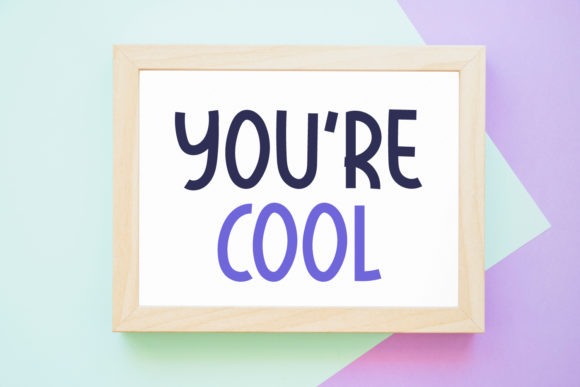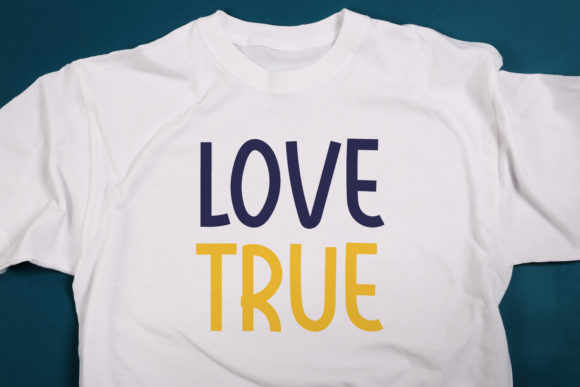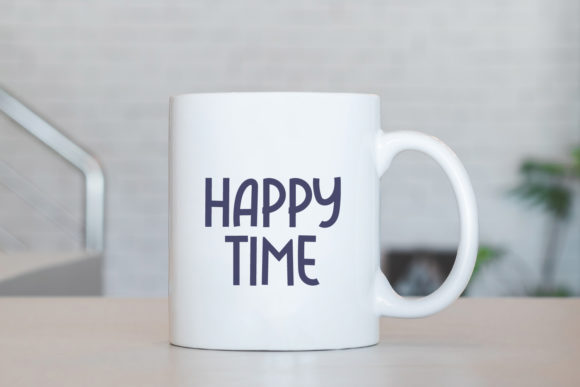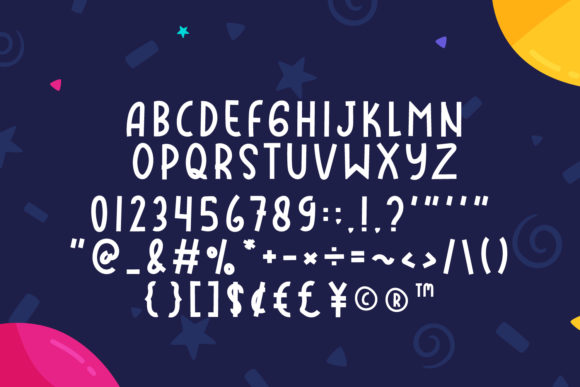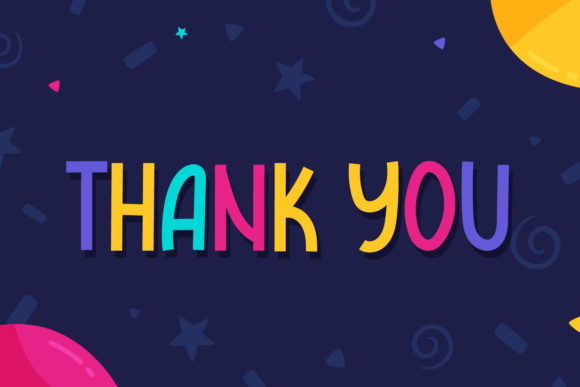
The Ultimate Playful Font for Your Next Creative Project
Have you ever been in the midst of brainstorming a new idea, only to be stuck on finding the perfect font to bring it to life? You’ve scoured through font libraries, trying out different styles and sizes, but nothing seems to capture the essence of your concept. That’s where the Kidstoy Font comes in – a bold and thick lettered display font designed to elevate any creation and make it truly unforgettable.
Whether you’re working on a children’s book, a playful advertisement, or a fun infographic, the Kidstoy Font is the perfect addition to your font library. Its unique style and versatility make it an incredibly valuable asset for designers, allowing you to add a touch of whimsy and personality to any project.
Kidstoy Font Key Features
- Font Family: Kidstoy Font is a custom-designed font family that includes various styles and weights, making it suitable for a wide range of applications.
- Character Count: The font includes over 200 characters, including uppercase and lowercase letters, numbers, punctuation marks, and special characters.
- Unique Characteristics: The font features a playful, hand-drawn style with rounded edges and a childlike feel, making it ideal for children’s educational materials, toys, and games.
Kidstoy Font Review
At first glance, Kidstoy Font appears to be a charming and whimsical font designed specifically for children’s materials and educational purposes. I must say, I was quite excited to dive in and see what this font has to offer. Here are my honest thoughts:
- Unique and playful character set – The Kidstoy Font has a distinct personality that’s sure to capture the attention of young readers.
- Perfect for children’s books and educational materials – The font’s design is tailored to appeal to kids, making it an excellent choice for this type of content.
- Smooth and consistent lines – The font’s strokes are well-defined and easy to read, even at smaller font sizes.
- Limited language support – The font appears to be primarily designed for English, which may limit its use for content in other languages.
- Not ideal for complex text or body copy – While the font works well for headings and titles, it may not be the best choice for large blocks of text or complex information.
Overall, Kidstoy Font is a delightful and engaging font that’s perfect for children’s materials. While it has some limitations, it’s a great choice for headings, titles, and other visual elements that require a playful touch.
For best results, use the Kidstoy Font in conjunction with playful graphics and bright colors to create a fun and engaging design.
For best results, use the Kidstoy Font in conjunction with bold graphics and vibrant colors to create a dynamic and eye-catching design.
For best results, use the Kidstoy Font in conjunction with playful graphics and bright colors to create a fun and engaging design.
The Kidstoy Font is perfect for:
- Kids’ books and educational materials
- Playground and nursery signage
Remember to use the Kidstoy Font in a way that is consistent with your brand and design style.